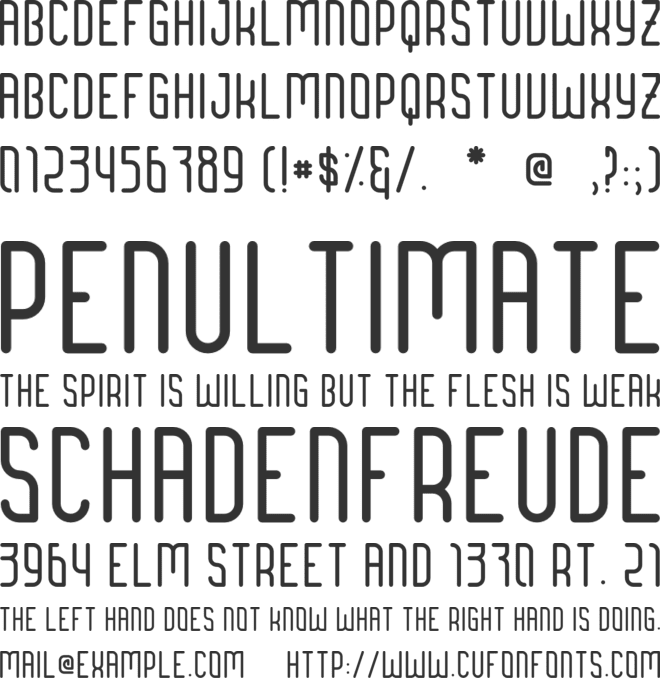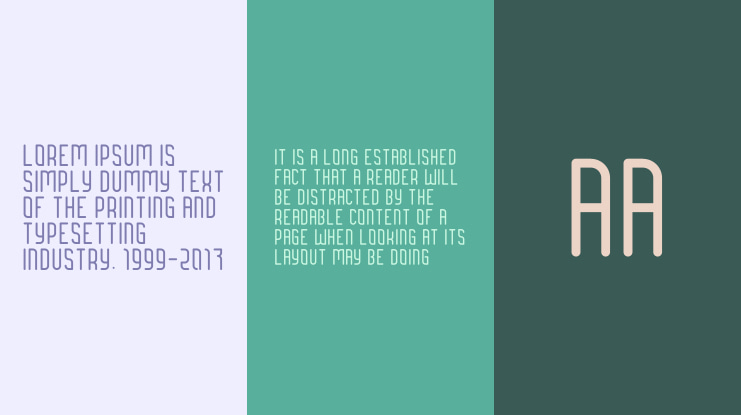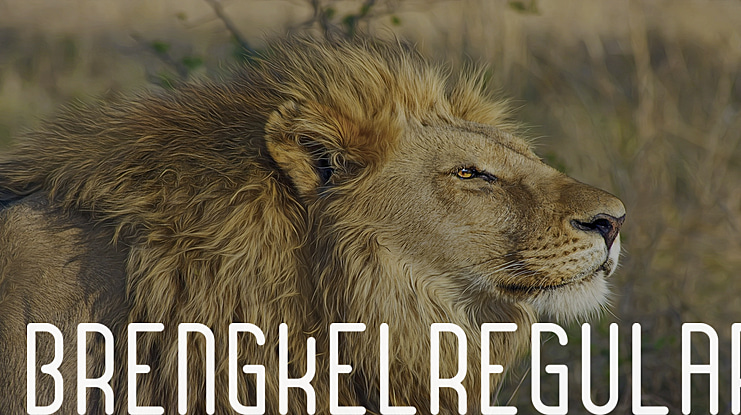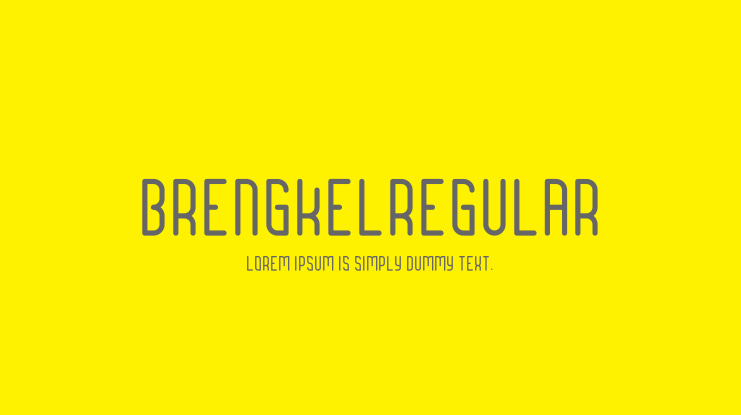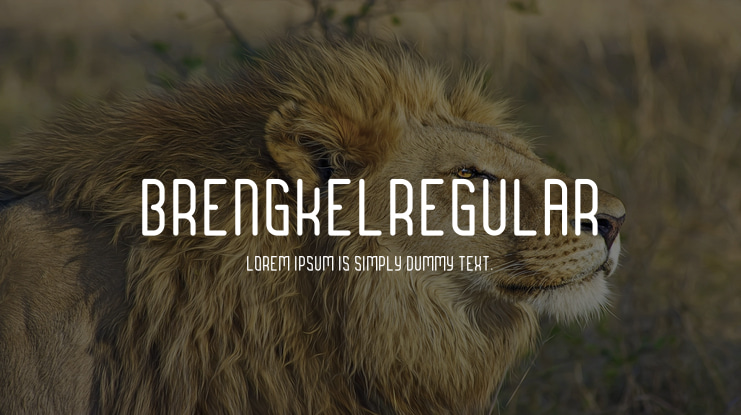
BrengkelRegular Font
Brengkel Font also includes full set of uppercase letters, numerals, punctuation. It would be perfect for all types of printing techniques, you can do embroidery, laser cut, gold foil, etc.